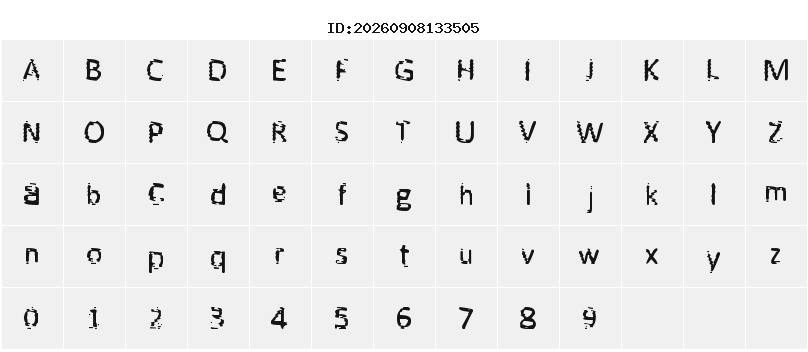
About UNKNOWN.ttf
UNKNOWN.ttf is a modern, elegant sans-serif font designed for ultimate readability and visual harmony. Perfect for branding, headlines, web design, and print materials.